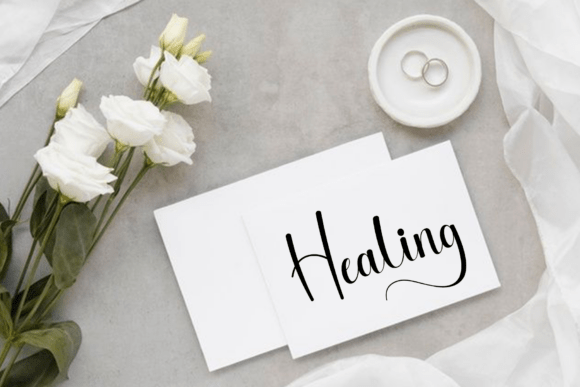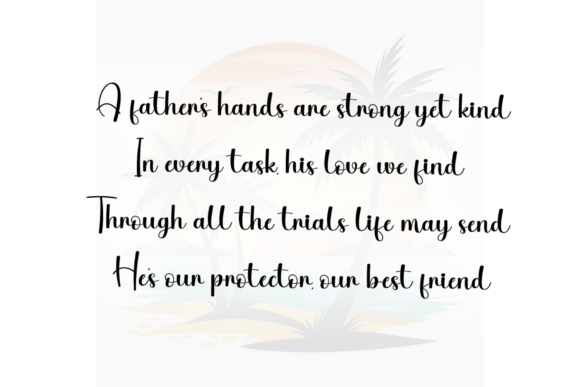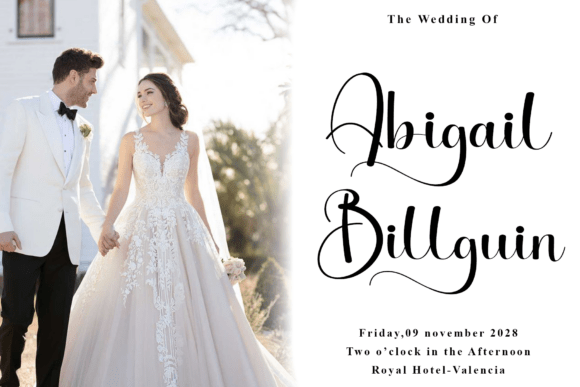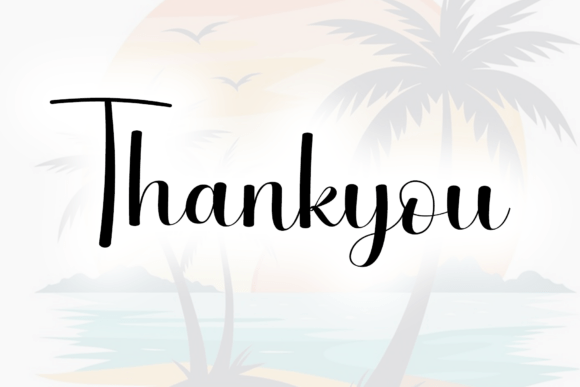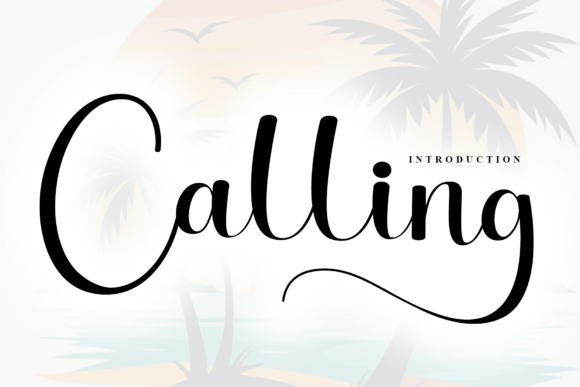
Introducing Calling Font: Elevate Your Brand with Sophisticated Script
In the world of typography, few fonts manage to strike a balance between elegance and warmth. Calling Font is one such exceptional typeface that seamlessly blends calligraphic flair with an organic, artisanal feel. This sophisticated script font is designed to bring a touch of bespoke artistry to any project, making it a premier choice for designers and crafters looking to elevate their brand’s visual identity.
The Distinctive Charm of Calling Font
So, what sets Calling Font apart from other script fonts? The answer lies in its distinctive, sweeping ascenders that loop and curve with a rhythmic fluidity. These elegant strokes not only add a touch of sophistication but also evoke a sense of handcrafted artistry. Each letter seems to be carefully penned, imbuing the text with a personal, customized feel that resonates with audiences.
Calling Font’s design is deeply rooted in the traditions of calligraphy, yet it maintains a modern, approachable vibe. This balance makes it an incredibly versatile typeface suitable for a wide range of applications. Whether you’re working on artisanal food branding, boutique product packaging, upscale lifestyle marketing, or creative editorial titles, Calling Font is sure to make a lasting impression.
Applications for Calling Font
The versatility of Calling Font is one of its most compelling features. Here are some of the key areas where this font truly shines:
- Artisanal Food Branding: For businesses that specialize in gourmet foods, specialty teas, or handcrafted beverages, Calling Font offers a way to convey luxury and exclusivity. Its elegant appearance can elevate labels, menus, and marketing materials, suggesting a high level of quality and care.
- Boutique Product Packaging: If you’re launching a line of handmade or luxury products, the right typography can make all the difference. Calling Font’s unique blend of sophistication and warmth can add a compelling narrative to your packaging, making your products stand out on crowded shelves.
- Upscale Lifestyle Marketing: For brands that cater to a high-end audience, establishing a sense of refinement and elegance is crucial. Calling Font can help you achieve this through its luxurious appearance, perfect for advertising, brochures, and digital campaigns targeting discerning clients.
- Creative Editorial Titles: In editorial design, the title often sets the tone for the entire publication. Calling Font, with its distinctive style, can add an artistic touch to magazine covers, book titles, and even website headers, drawing readers in and promising a unique reading experience.
Why Choose Calling Font?
With so many fonts available, why should Calling Font be your go-to choice for projects requiring a sophisticated script? The answer lies in its perfect blend of style, versatility, and emotional resonance. Here are a few reasons why Calling Font stands out:
- Unique Aesthetic: The looping ascenders and fluid strokes of Calling Font create a one-of-a-kind look that can set your brand apart from the competition.
- Emotional Connection: The warm, organic feel of this font helps create an emotional connection with your audience, suggesting a personal touch and attention to detail.
- Versatility: Whether you’re designing for digital platforms or print, Calling Font adapts beautifully, ensuring consistency across all your marketing materials.
Calling Font is more than just a typeface; it’s a design statement that can elevate your brand’s visual identity. Its sophisticated yet warm aesthetic makes it an excellent choice for anyone looking to add a touch of artisanal elegance to their projects. Whether you’re a designer seeking to impress clients or a crafter aiming to highlight the uniqueness of your products, Calling Font offers the perfect blend of style, sophistication, and emotional resonance.
So, why settle for ordinary when you can make a statement with Calling Font? Explore its creative possibilities and discover how this beautiful script font can transform your brand’s presence in the market.